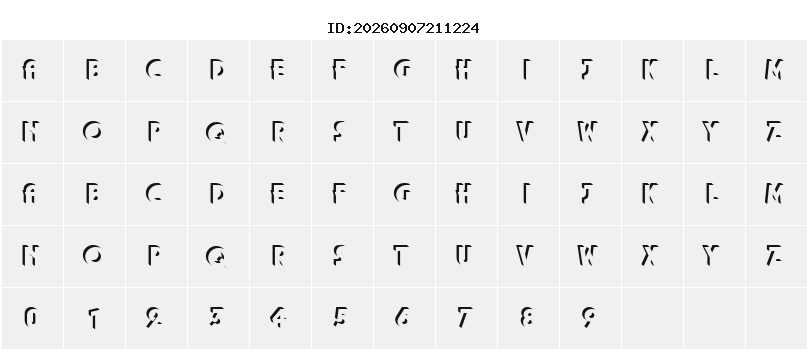
URWPlenaOnlShaDUlt Preview
• Font Name: URWPlenaOnlShaDUlt
• Full Font Name: URWPlenaOnlShaDUlt
About URWPlenaOnlShaDUlt.ttf
URWPlenaOnlShaDUlt.ttf is a modern, elegant sans-serif font designed for ultimate readability and visual harmony. Perfect for branding, headlines, web design, and print materials.